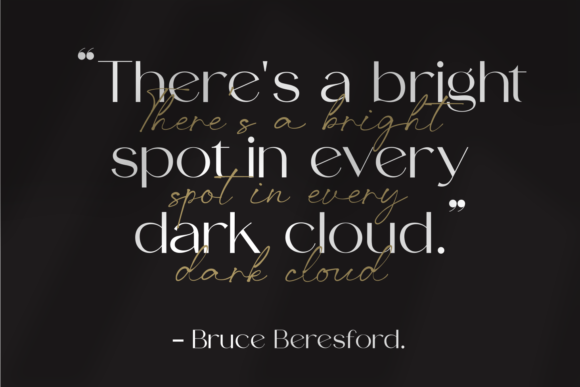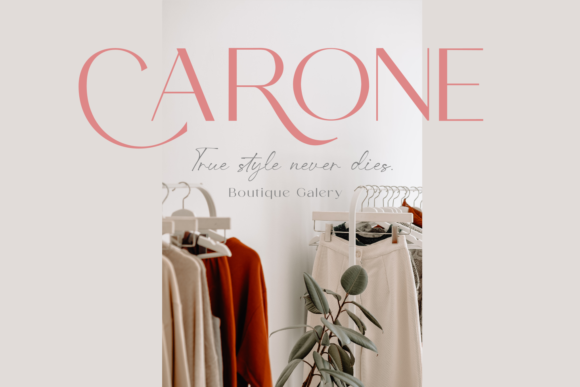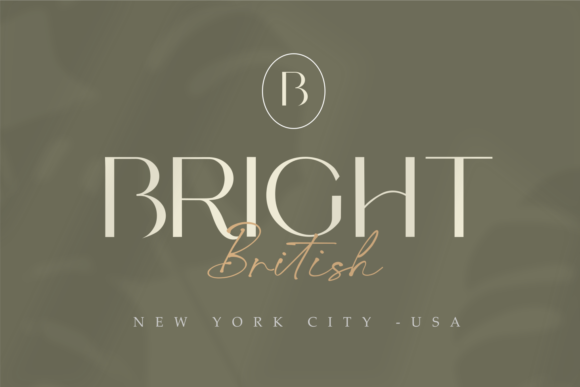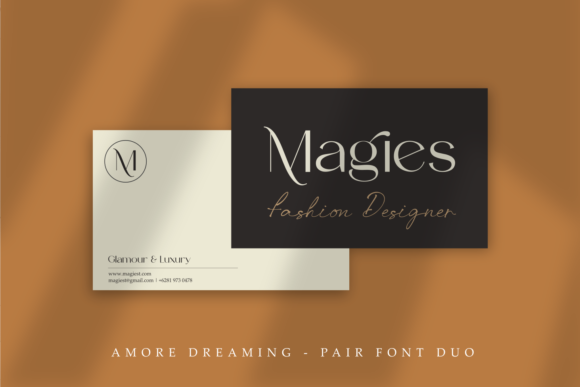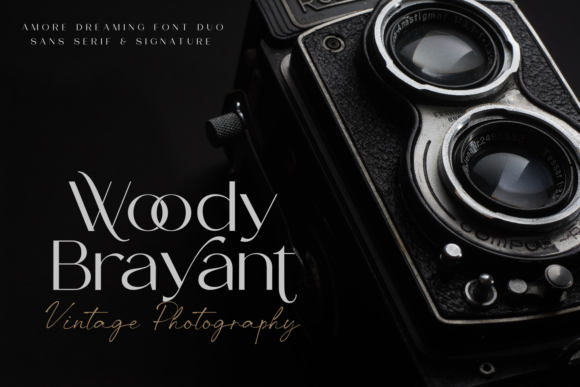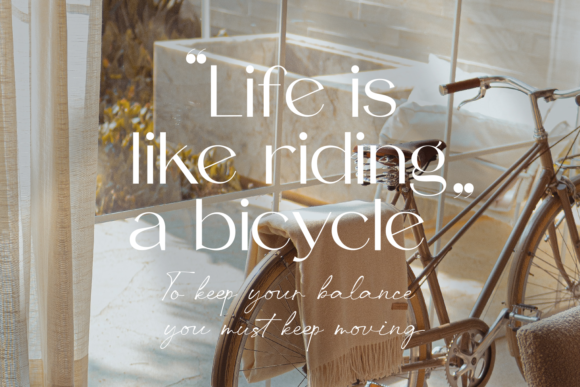
Unlock the Art of Luxury Typography
Have you ever found yourself lost in a sea of design inspiration, only to stumble upon a font that transports you to a world of elegance and sophistication? For me, that moment came when I discovered the Amore Dreaming Font duo – a match made in heaven of refined sans serif and signature script fonts.
As a designer, you understand the importance of selecting the perfect font to elevate your brand’s visual identity. Amore Dreaming Font is more than just a typography duo – it’s a tool that helps you convey luxury, sophistication, and romance. With its PUA encoding, you can access a world of glyphs and swashes, giving you endless creative possibilities. Whether you’re designing a high-end wedding invitation or a premium product label, Amore Dreaming Font is the perfect companion to help you create stunning visuals that leave a lasting impression.
Key Features of Amore Dreaming Font
- Font Family: Amore Dreaming
- Font Size: 1,012 glyphs
- Unique Characteristics: A romantic, cursive script font with swashes and flourishes, ideal for wedding invitations, love letters, and other sentimental designs.
- Language Support: Supports Latin, Cyrillic, and Greek alphabets, as well as many non-Latin scripts.
- Font Weight: Available in Regular, Bold, and Italic weights.
Amore Dreaming Font Review
Overall, I was impressed with the Amore Dreaming Font. It’s a beautiful, elegant script font that’s perfect for creating romantic and whimsical designs. ✨ The font’s subtle flair and delicate lines give it a dreamy, ethereal quality that’s sure to captivate your audience.
One of the standout features of this font is its versatility. It can be used for a wide range of projects, from wedding invitations and valentines to baby announcements and poetry books. The font’s cursive style is also highly legible, making it a great choice for body text.
- ✨ Elegant and whimsical design
- ✨ Highly legible cursive style
- ✨ Versatile and suitable for a wide range of projects
- ⚠️ Limited character set (not ideal for lengthy body text)
- ⚠️ May not be suitable for modern or minimalist designs
In terms of overall impression, I would give the Amore Dreaming Font 4 out of 5 stars. While it has some limitations, its unique charm and versatility make it a great choice for designers looking to add a touch of romance and whimsy to their projects.
For the most effective use of Amore Dreaming Font, keep the following tips in mind:
– Use it for romantic and whimsical designs.
– Pair it with floral patterns and soft colors.
– Use it for invitations, greeting cards, and wedding stationery.
– Experiment with different font sizes and styles to add visual interest.
Alternatives to Amore Dreaming Font
Amore Dreaming Font is a beautiful, elegant script font often used for wedding invitations, romantic quotes, and other creative projects. Here are a few alternatives for designers:
Great Vibes is a modern, elegant script font that’s perfect for creating a sophisticated and romantic atmosphere. It’s ideal for wedding invitations, branding, and packaging design. Compared to Amore Dreaming Font, Great Vibes has a more refined and polished look, making it suitable for corporate and high-end projects.
Carolyna Pro is a beautiful, elegant script font that’s designed for luxury branding and high-end design projects. It’s perfect for creating a sense of sophistication and elegance, making it ideal for wedding invitations, luxury packaging, and branding. Compared to Amore Dreaming Font, Carolyna Pro has a more refined and classic look, making it suitable for high-end projects.
Alex Brush is a elegant script font that’s perfect for creating a romantic and whimsical atmosphere. It’s ideal for wedding invitations, branding, and packaging design. Compared to Amore Dreaming Font, Alex Brush has a more organic and handwritten feel, making it suitable for creative and artistic projects.
Dancing Script is a modern, elegant script font that’s perfect for creating a fun and playful atmosphere. It’s ideal for branding, packaging design, and advertising. Compared to Amore Dreaming Font, Dancing Script has a more dynamic and energetic feel, making it suitable for projects that require a sense of movement and playfulness.